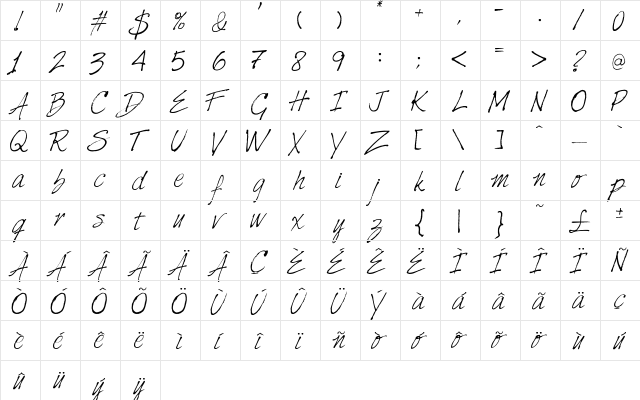
HarabaraHand Italic
Design Context for HarabaraHand Typeface
HarabaraHand brings a calligraphic fluidity to the page — its connecting strokes and expressive curves give it an unmistakably human quality.
Font Pairing: Combine HarabaraHand with a simple geometric sans for maximum contrast — the tension between flowing curves and clean structure is a classic typographic pairing.
Pro Tip: Pair HarabaraHand with a clean sans-serif for supporting text. The contrast between fluid script and geometric structure creates an elegant typographic hierarchy.